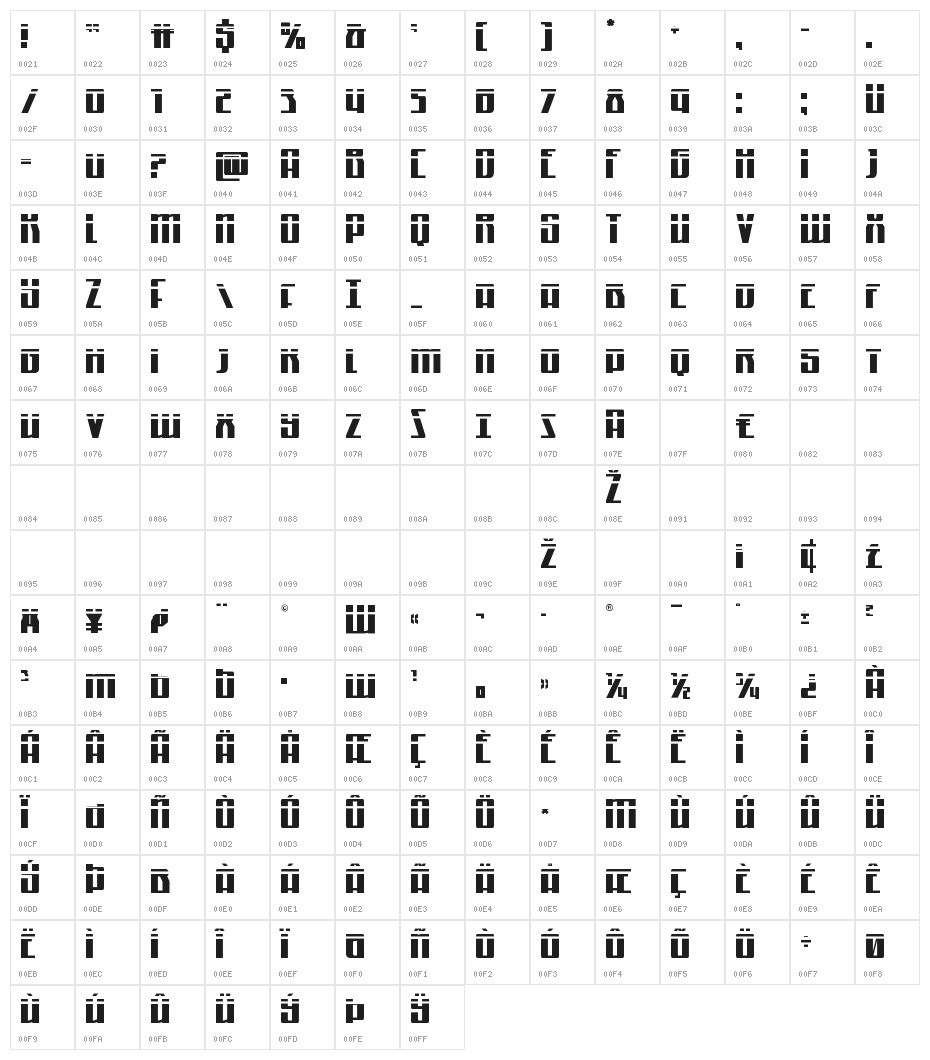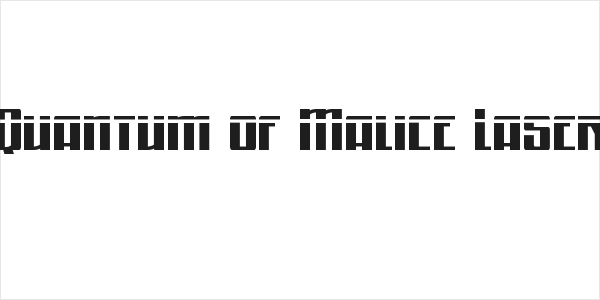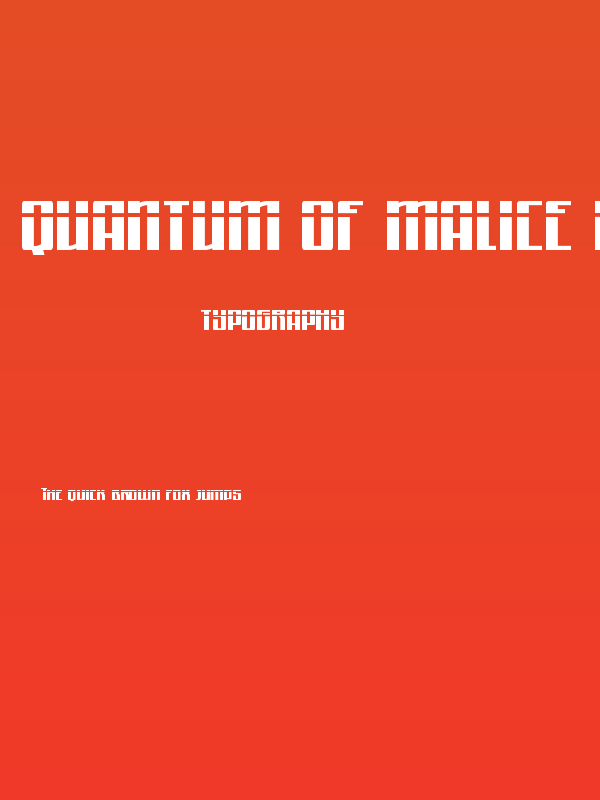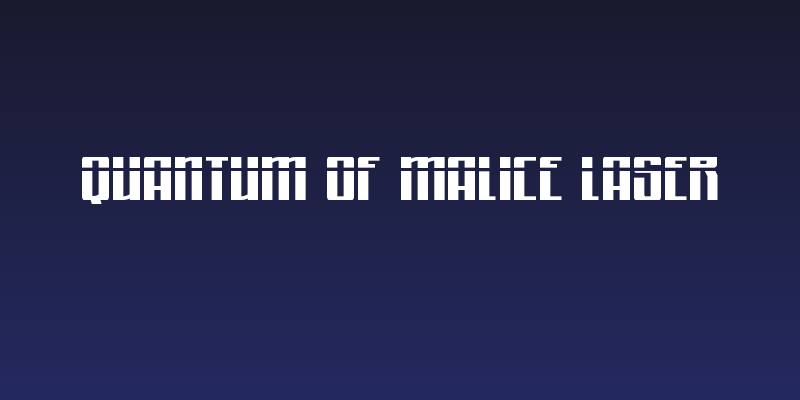
Quantum of Malice Laser Font
Quantum of Malice Laser Description
This font features a bold, futuristic design with a strong geometric influence. The characters are constructed with sharp angles and straight lines, giving it a mechanical and industrial feel. The uppercase letters are particularly striking, with a uniform height and width that creates a cohesive look. The lowercase letters maintain the same angular style, ensuring consistency throughout the typeface. Numbers and special characters are designed to match the bold and assertive aesthetic, making them stand out. This font is ideal for projects that require a modern and edgy appearance, such as technology branding, sci-fi themes, or video game titles.
| Proposed Projects | Ideal for technology branding, sci-fi themes, video game titles, and modern advertising. |